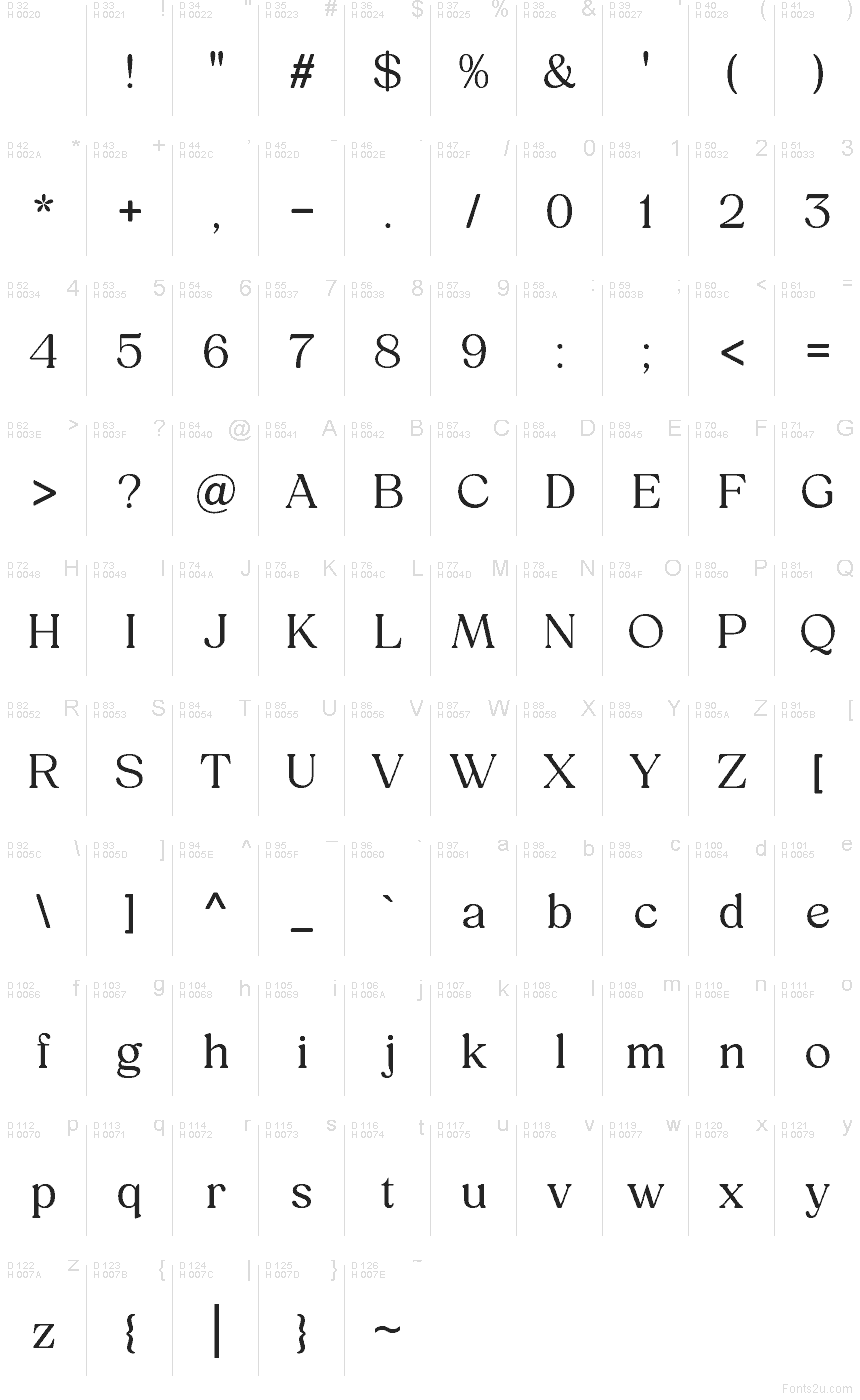
Brado Quena Regular
Brado Quena font by Sugiyanto of Sign Studio is a free serif font, and its charm sits in that crisp, bookish authority—tall strokes, confident serifs, and a poised rhythm that feels inked, not sterile. It reads like a well-set title page, with enough elegance to sound formal without turning fussy.
Using Brado Quena works beautifully for editorial headlines, brand wordmarks, book covers, magazine pull quotes, film titles, boutique packaging, certificates, and classy event stationery. Keep it slightly larger in headings so the details breathe, and pair this free font with a clean sans like Inter or Source Sans for sharp, modern contrast.